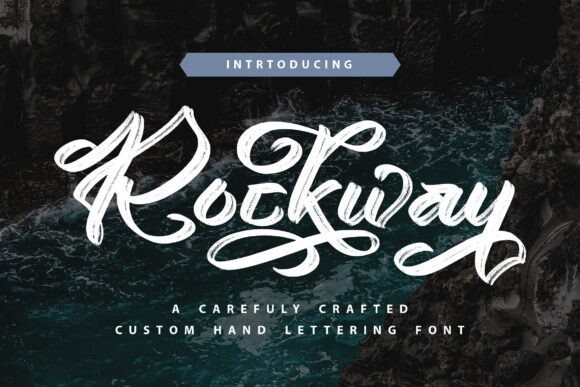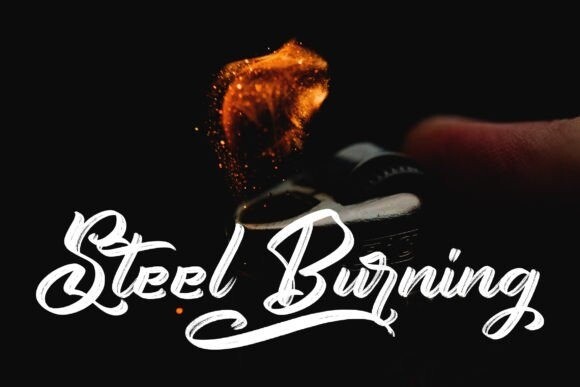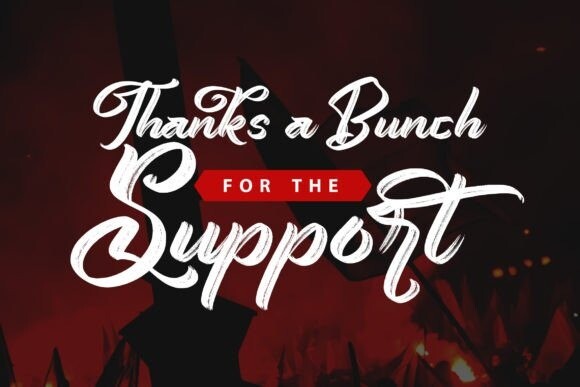
Rockway Font
Rockway – Custom handwritten font with a calligraphy style. It will look so beautiful on invitations like greeting cards, branding materials, business cards, quotes, posters, and more!